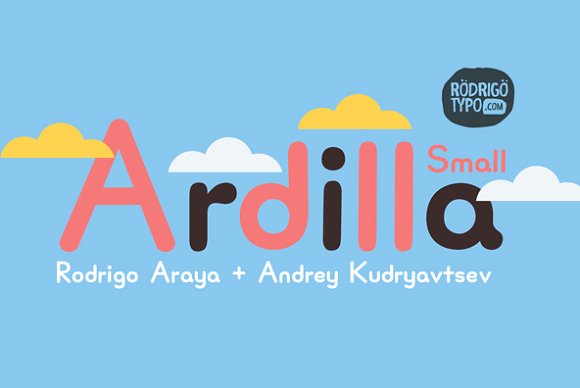
The Ardilla Small Font: A Peppa Pig-Inspired Delight for Designers
As a designer, I’ve had my fair share of font struggles. I recall working on a project for a children’s brand, searching for the perfect font that would capture the playful essence of the brand. That’s when I stumbled upon Ardilla Small, a charming font inspired by the beloved character Peppa Pig. In this article, I’ll share my experience with Ardilla Small, its features, and how to make the most of it in your designs.
A Personal Design Moment: Finding the Perfect Font
I was working on a project for a children’s brand, and I needed a font that would appeal to kids and parents alike. I tried several fonts, but none seemed to fit the bill. That’s when I discovered Ardilla Small, and it instantly clicked. The soft, rounded corners and adorable feel made it perfect for the project. I’ve been using it ever since, and I’m excited to share its features and benefits with you.
An Honest Review of Ardilla Small
• ✨ Soft and rounded corners that give it a friendly feel
• 🎉 Perfect for children’s projects, but also suitable for a wide range of designs, from branding to packaging
• 👍 Great for creating a playful and approachable atmosphere
While Ardilla Small is an excellent font, it’s not without its quirks. Here are a few things to keep in mind:
• 🤔 Limited character set: Ardilla Small might not have all the characters you need, so be sure to check the font’s capabilities before using it for a project.
• ⚠️ Not suitable for body text: While it’s legible, Ardilla Small is best used for headings, titles, or short paragraphs. For longer texts, consider using a more traditional font.
Ardilla Small was inspired by the popular children’s character Peppa Pig. The font’s creator aimed to capture the show’s playful, friendly essence in a font that would appeal to kids and parents alike. The result is a charming font that’s perfect for a wide range of projects, from children’s branding to packaging.
Q: What type of projects is Ardilla Small best suited for?
A: Ardilla Small is perfect for children’s projects, branding, packaging, and any design that requires a playful, friendly atmosphere.
Q: Is Ardilla Small available in different font weights?
A: Currently, Ardilla Small is available in a single font weight. However, you can experiment with different font sizes and styles to achieve the desired effect.
Q: Can I use Ardilla Small for body text?
A: While Ardilla Small is legible, it’s best used for headings, titles, or short paragraphs. For longer texts, consider using a more traditional font.